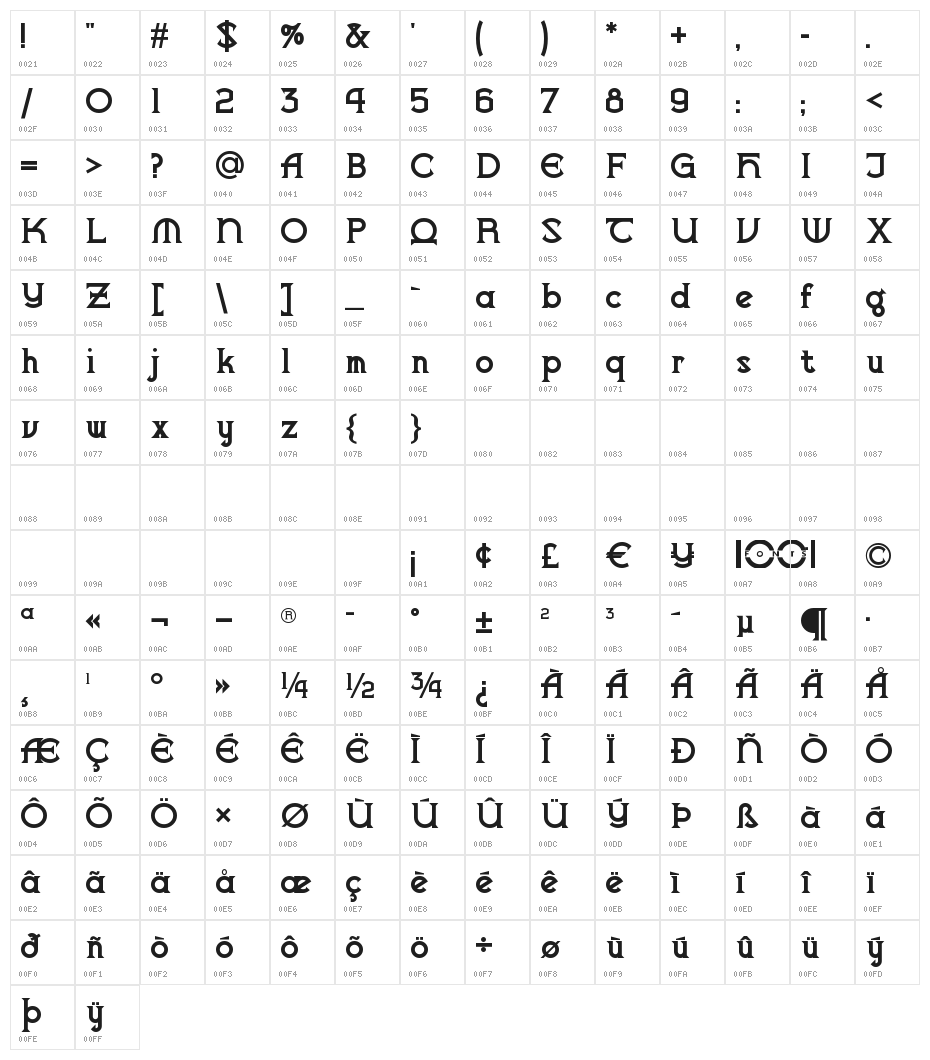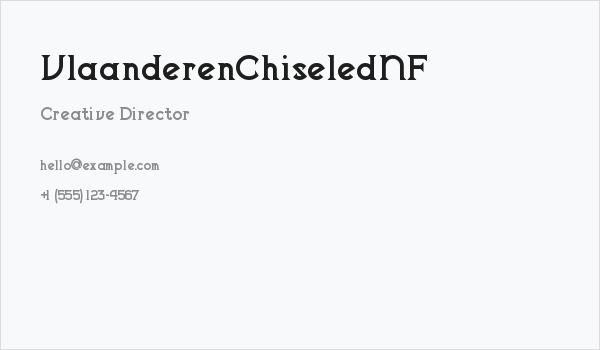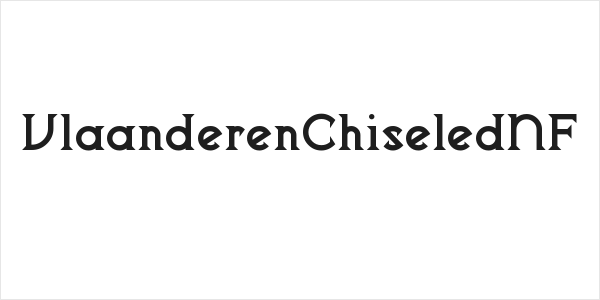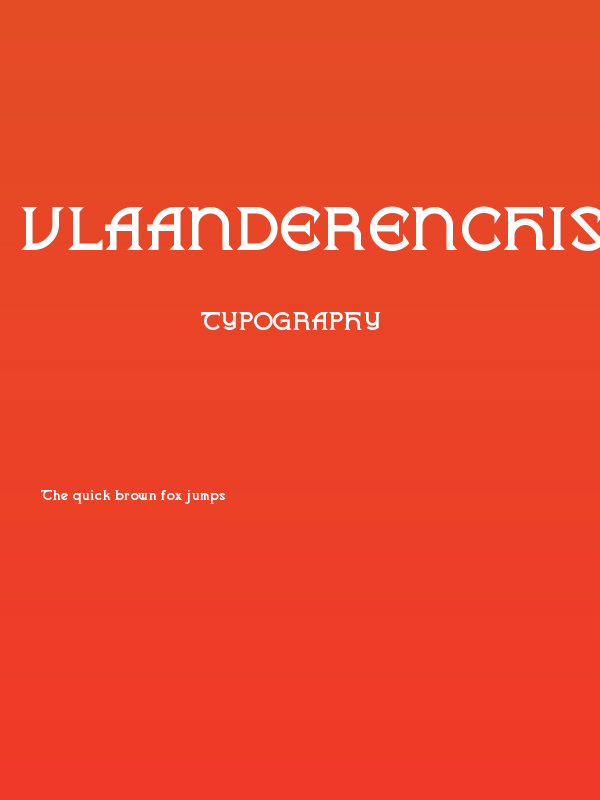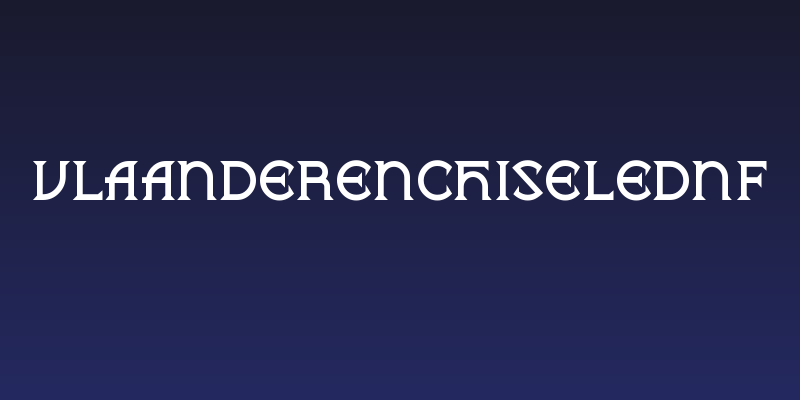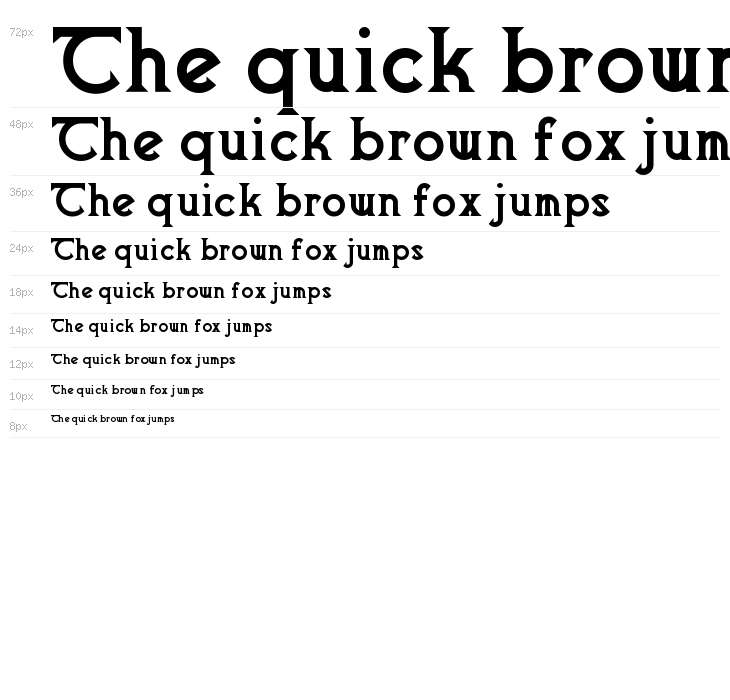
VlaanderenChiseledNF Font
VlaanderenChiseledNF Description
This font features a bold and striking design with a chiseled appearance, giving it a strong and commanding presence. The uppercase letters are characterized by sharp, angular serifs and a geometric structure, while the lowercase letters maintain a consistent style with slightly softer curves. The numerals are bold and clear, ensuring readability. Special characters are designed with the same chiseled aesthetic, making them stand out. This font's unique style is reminiscent of historical or medieval themes, making it ideal for projects that require a touch of classic elegance combined with a modern twist.
| Overall Style | Classic, Decorative |
| Proposed Projects | Ideal for branding, posters, book covers, and any project needing a bold, historical aesthetic. |